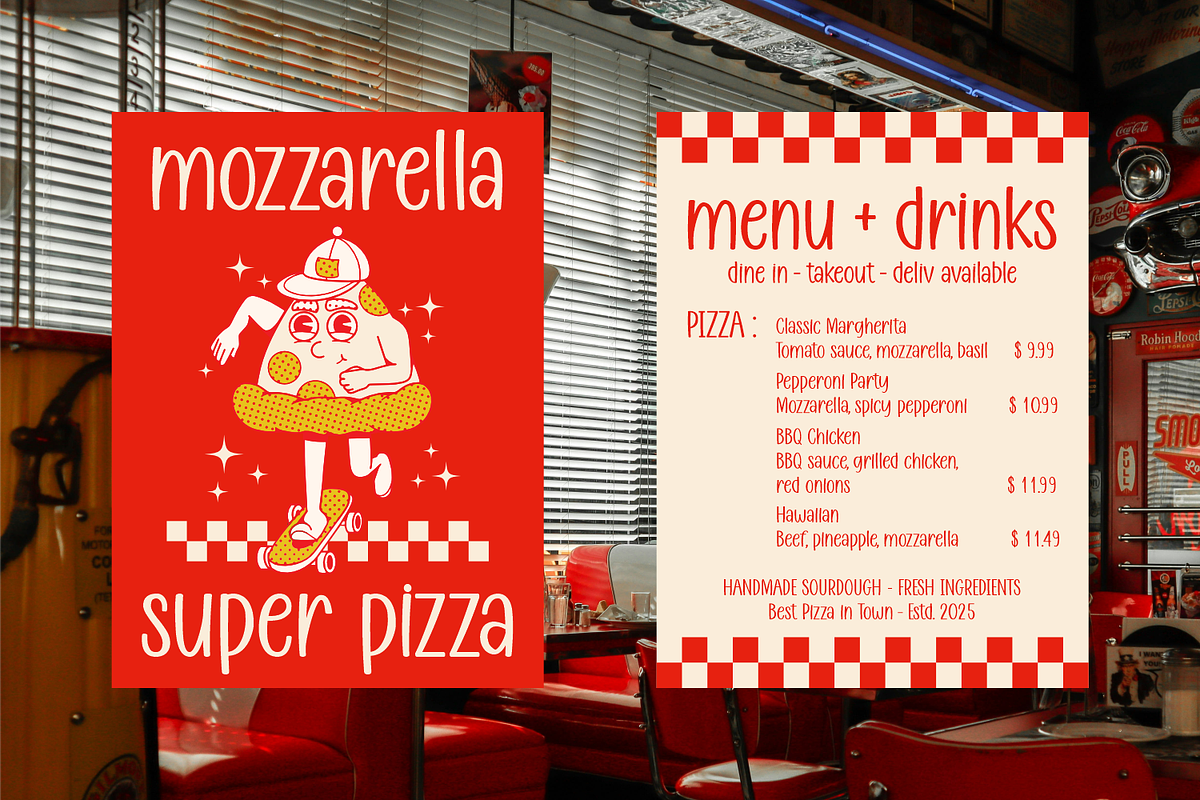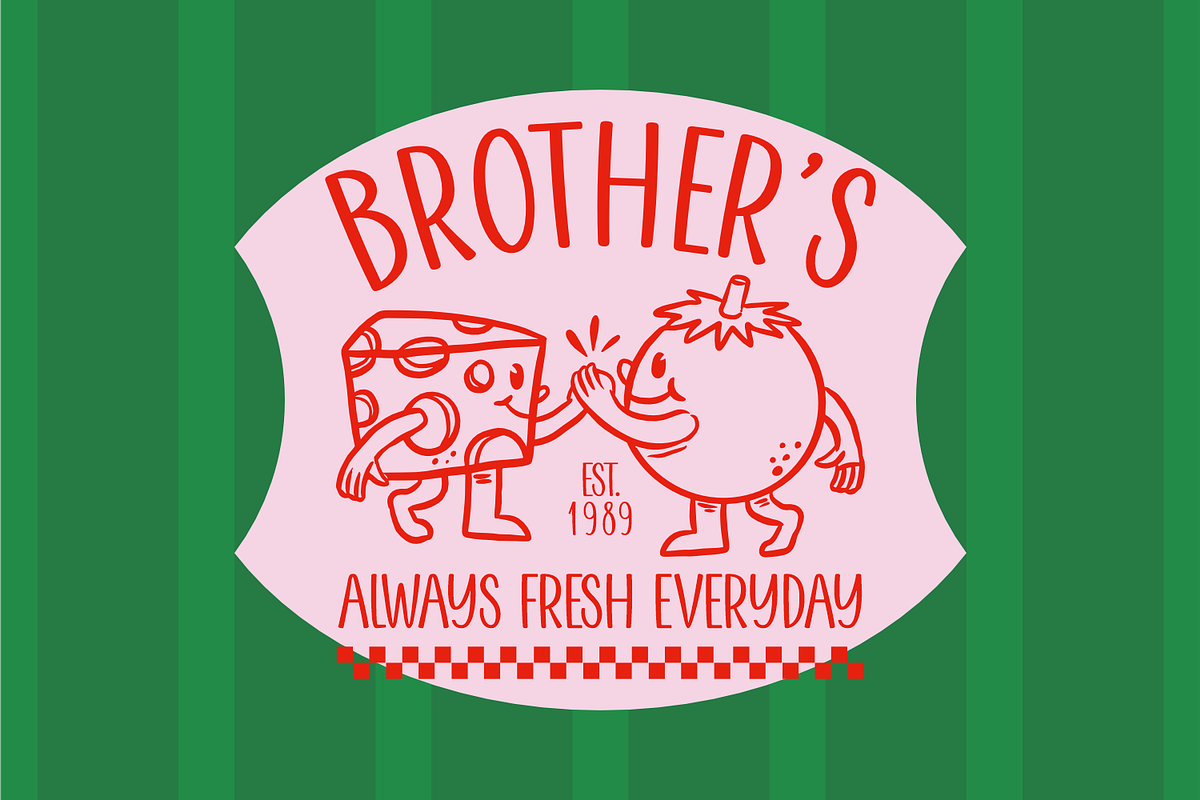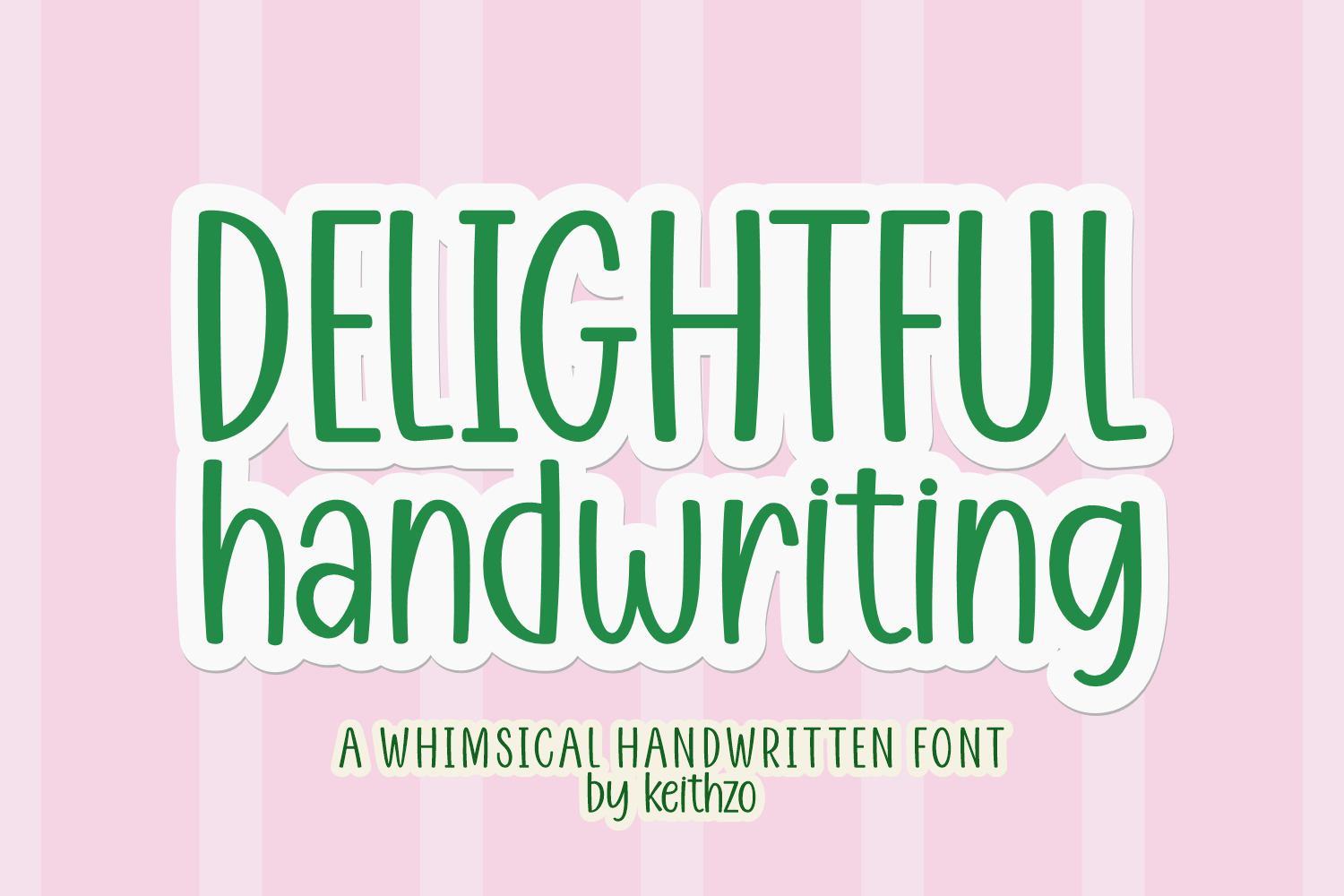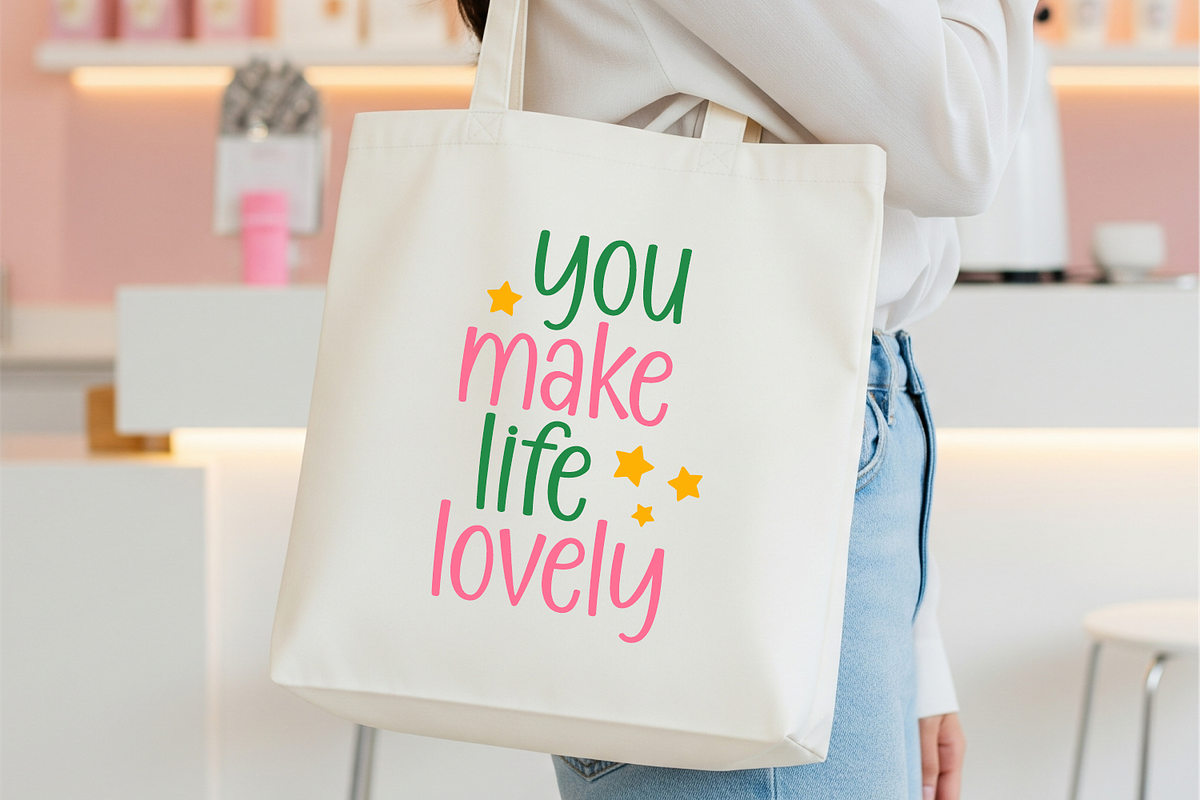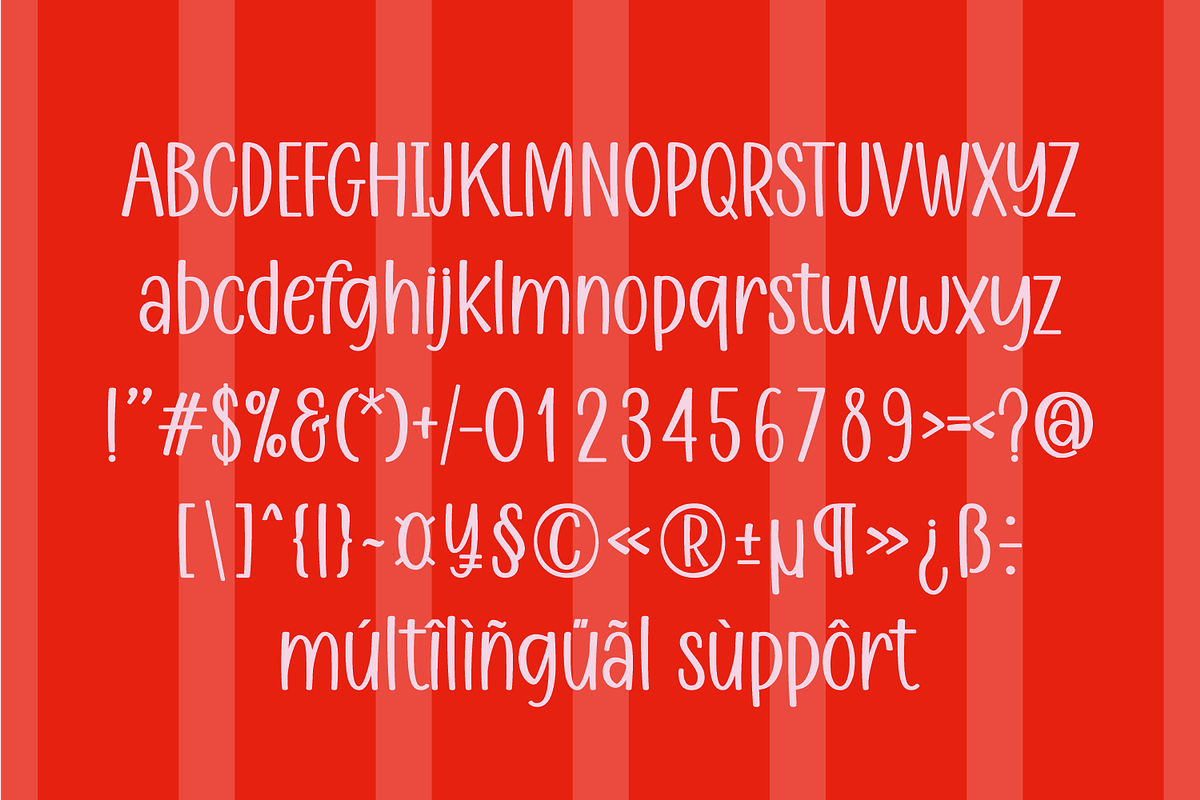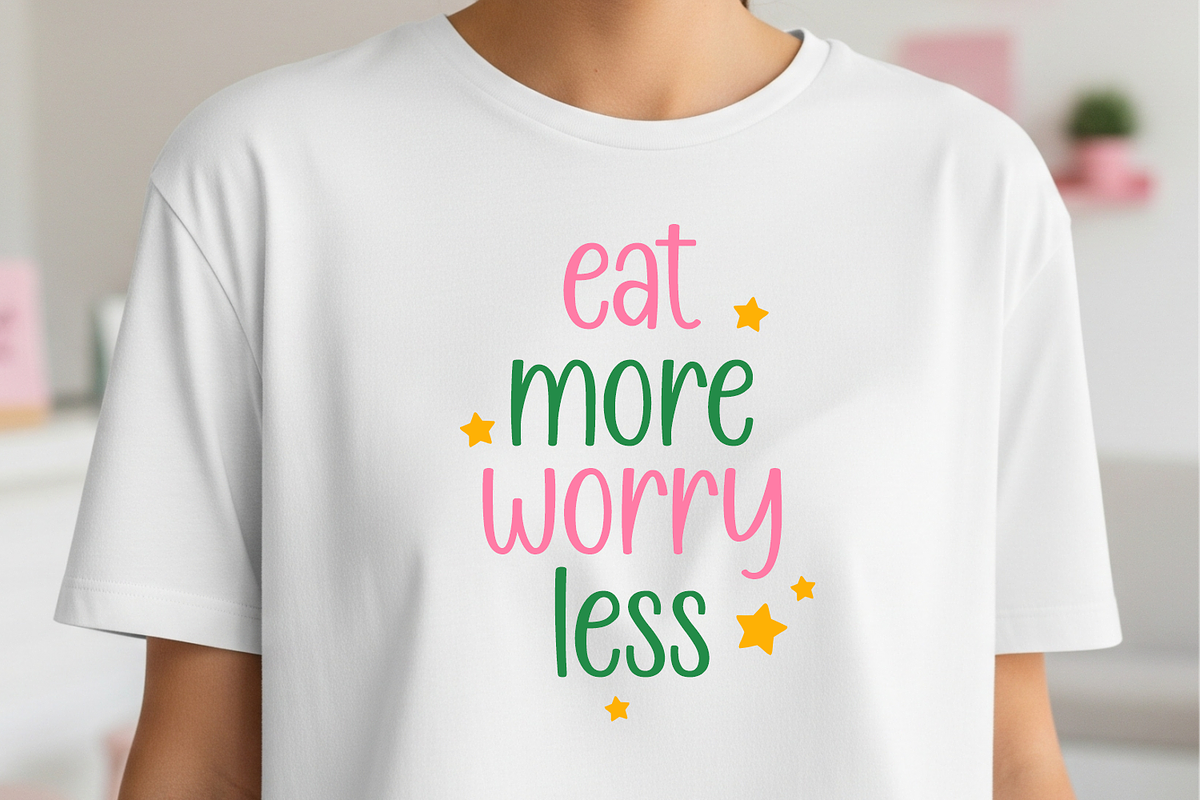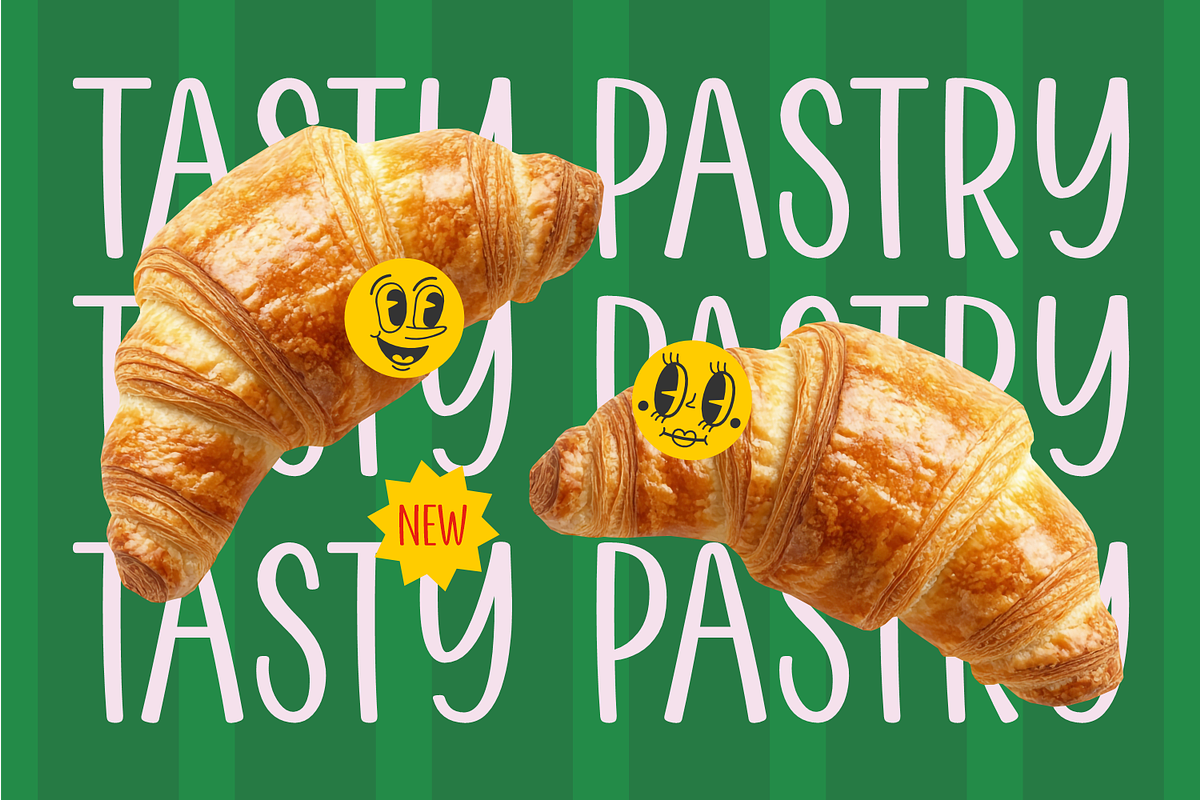
Delightful Handwriting Font
Delightful Handwriting – Fun, Retro & Totally Handwritten
Say hello to Delightful Handwriting, your new favorite handwritten font for when you want things to look effortless and cool. This typeface is all about that tall, skinny, and whimsical handwritten look that’s trending right now. It’s got just the right amount of retro aesthetic to make your designs feel like a blast from the past, but with a fresh, modern twist.
Whether you’re making a quick quote for Instagram or a full-on retro branding project, this handwritten typeface adds that “personal touch” without trying too hard. It’s simple, it’s fun, and it’s undeniably retro.